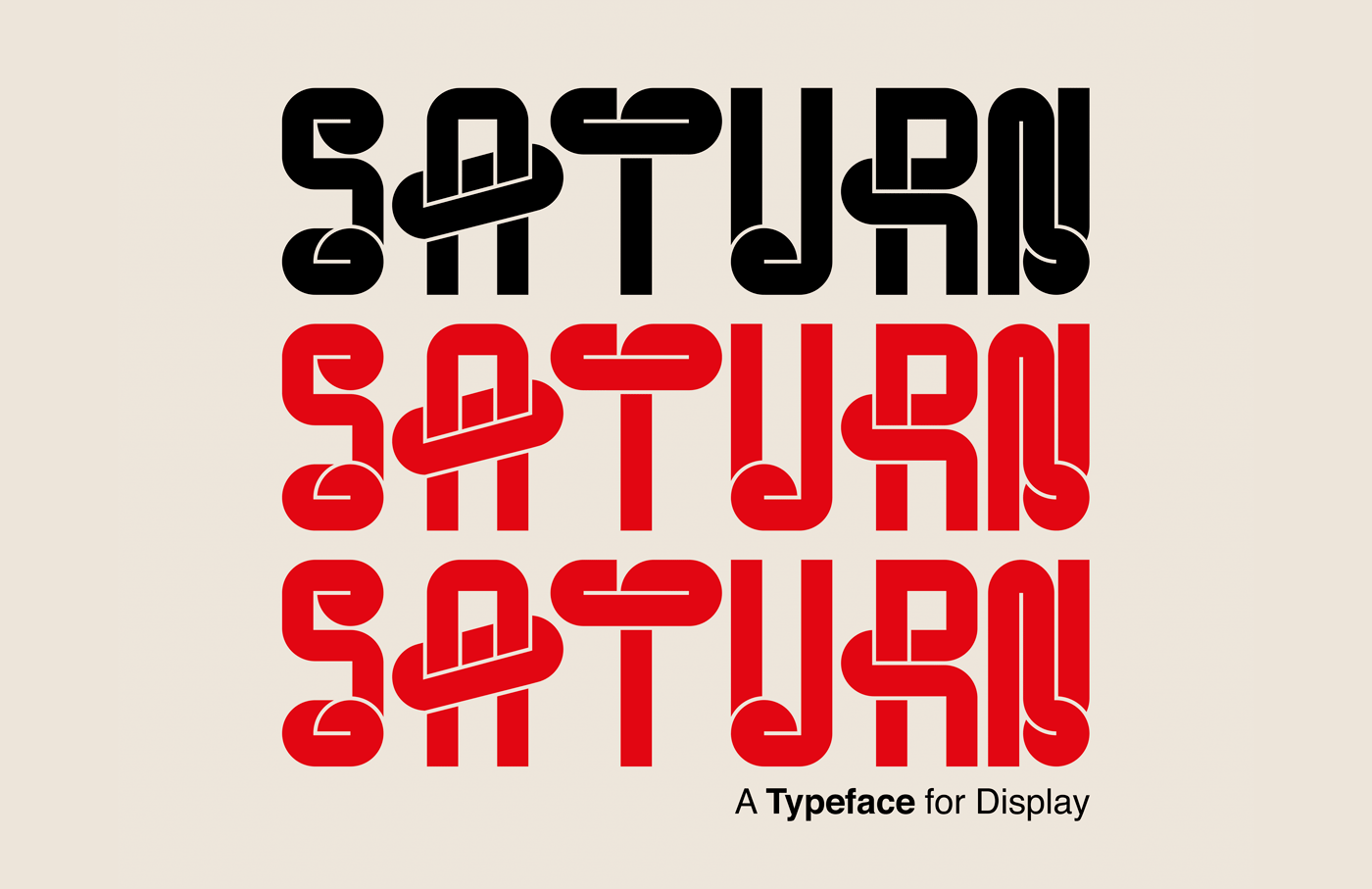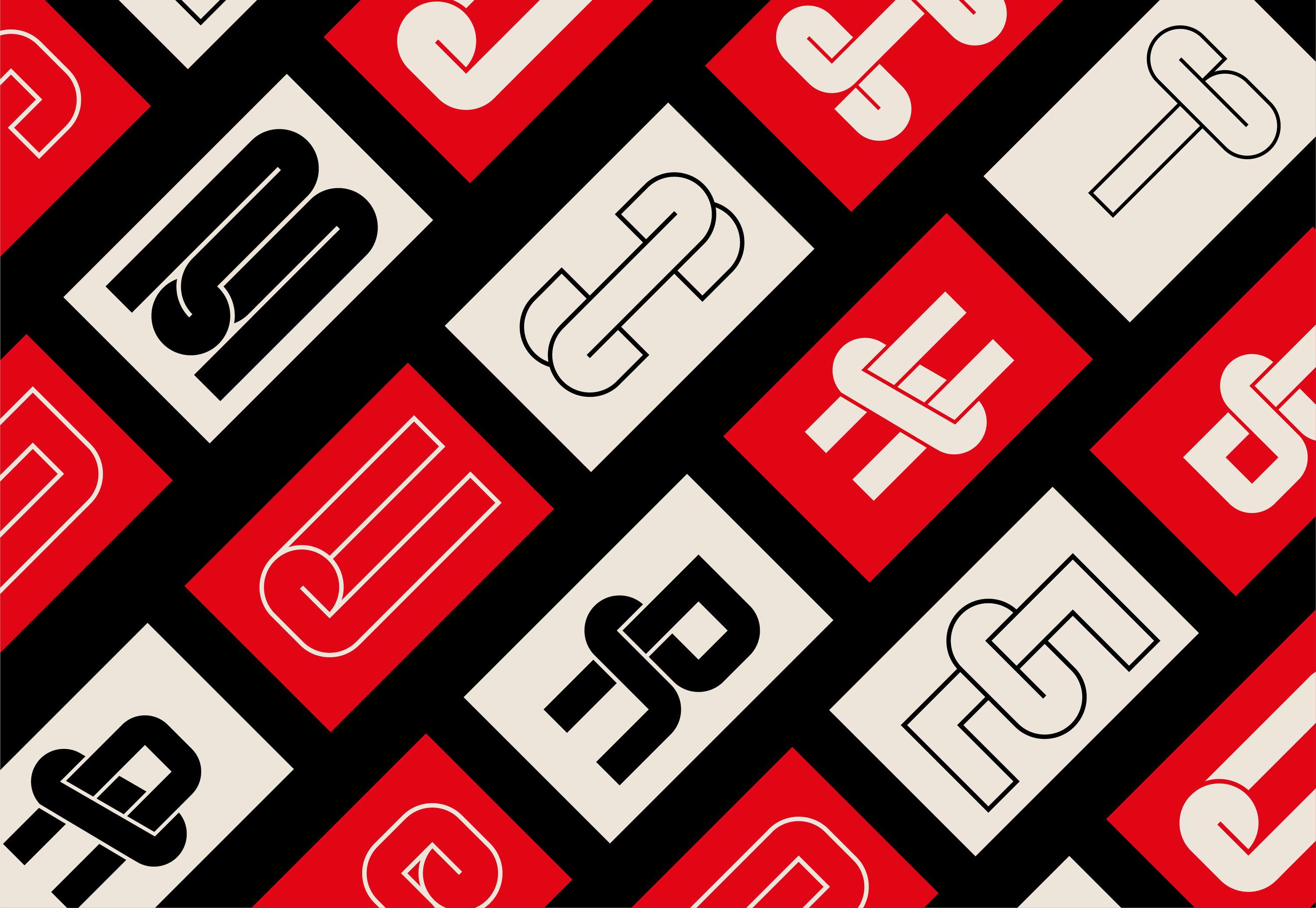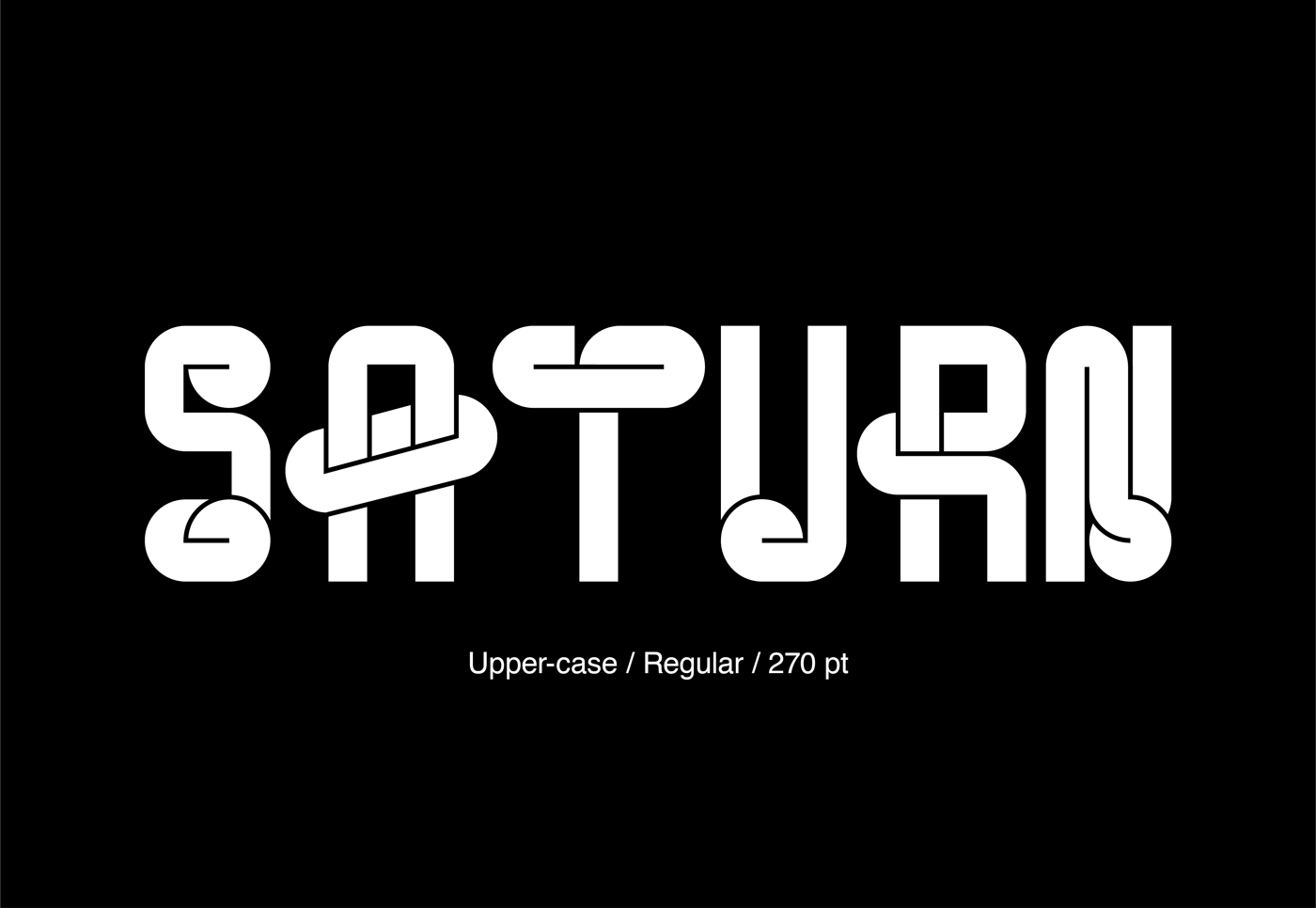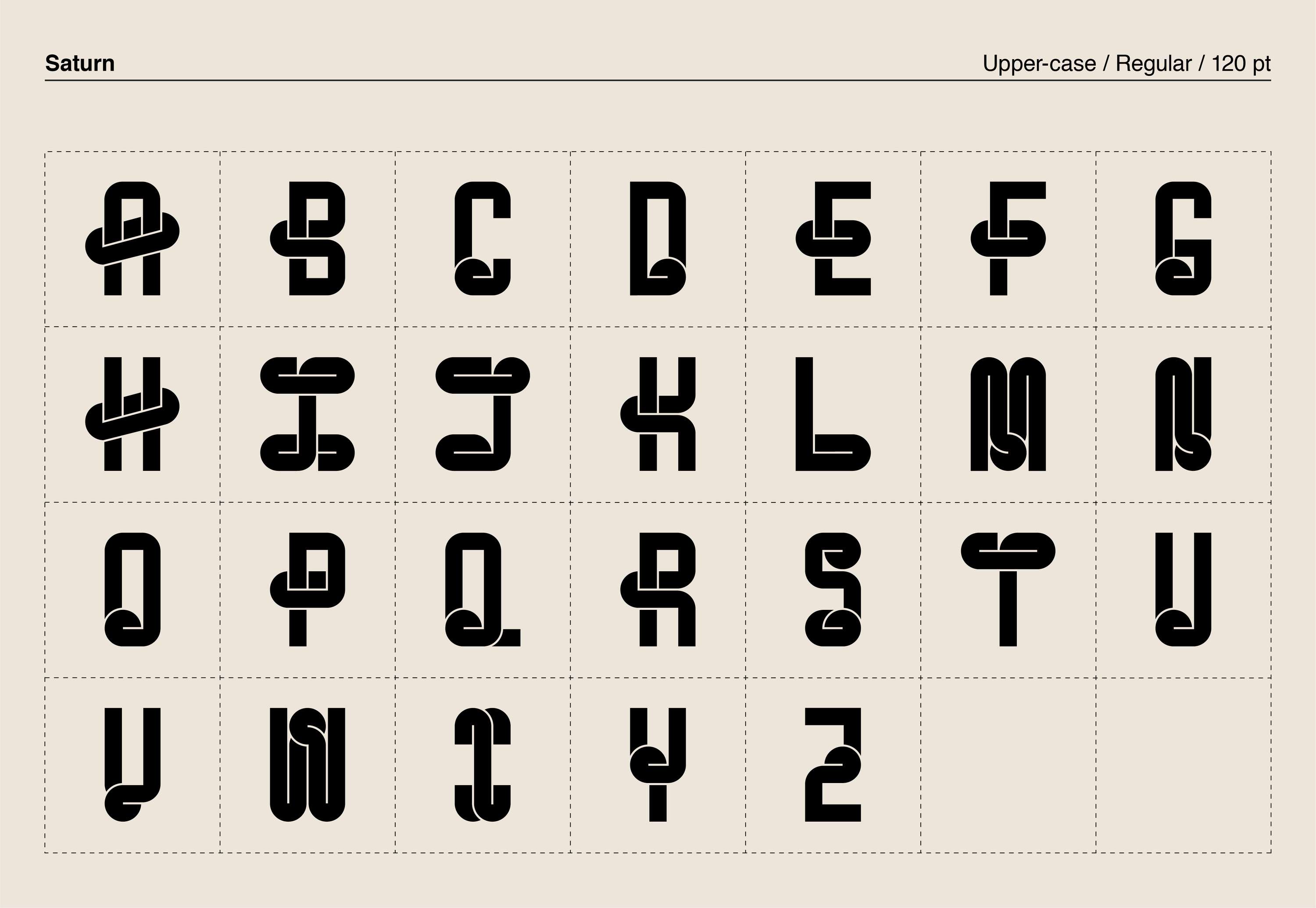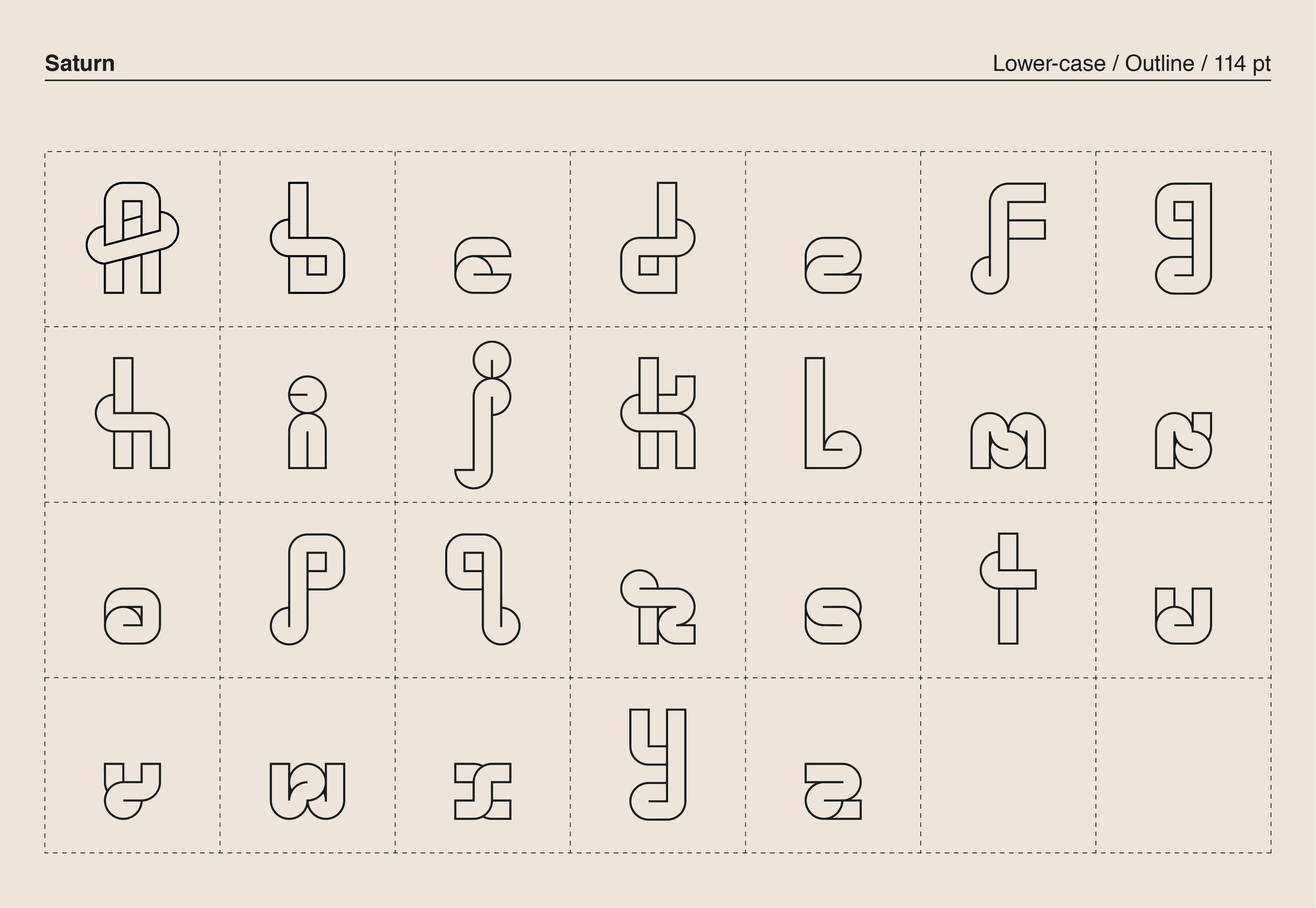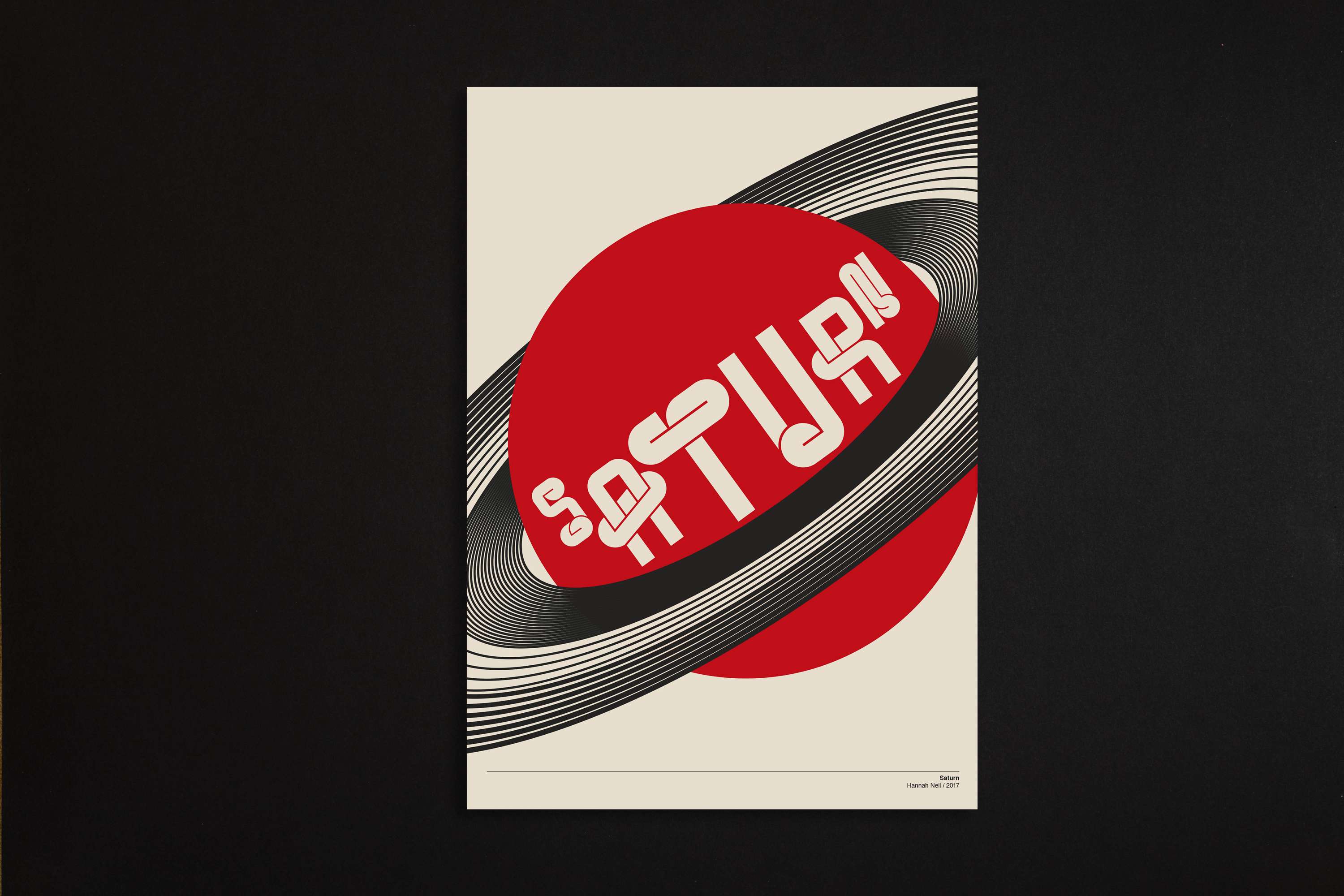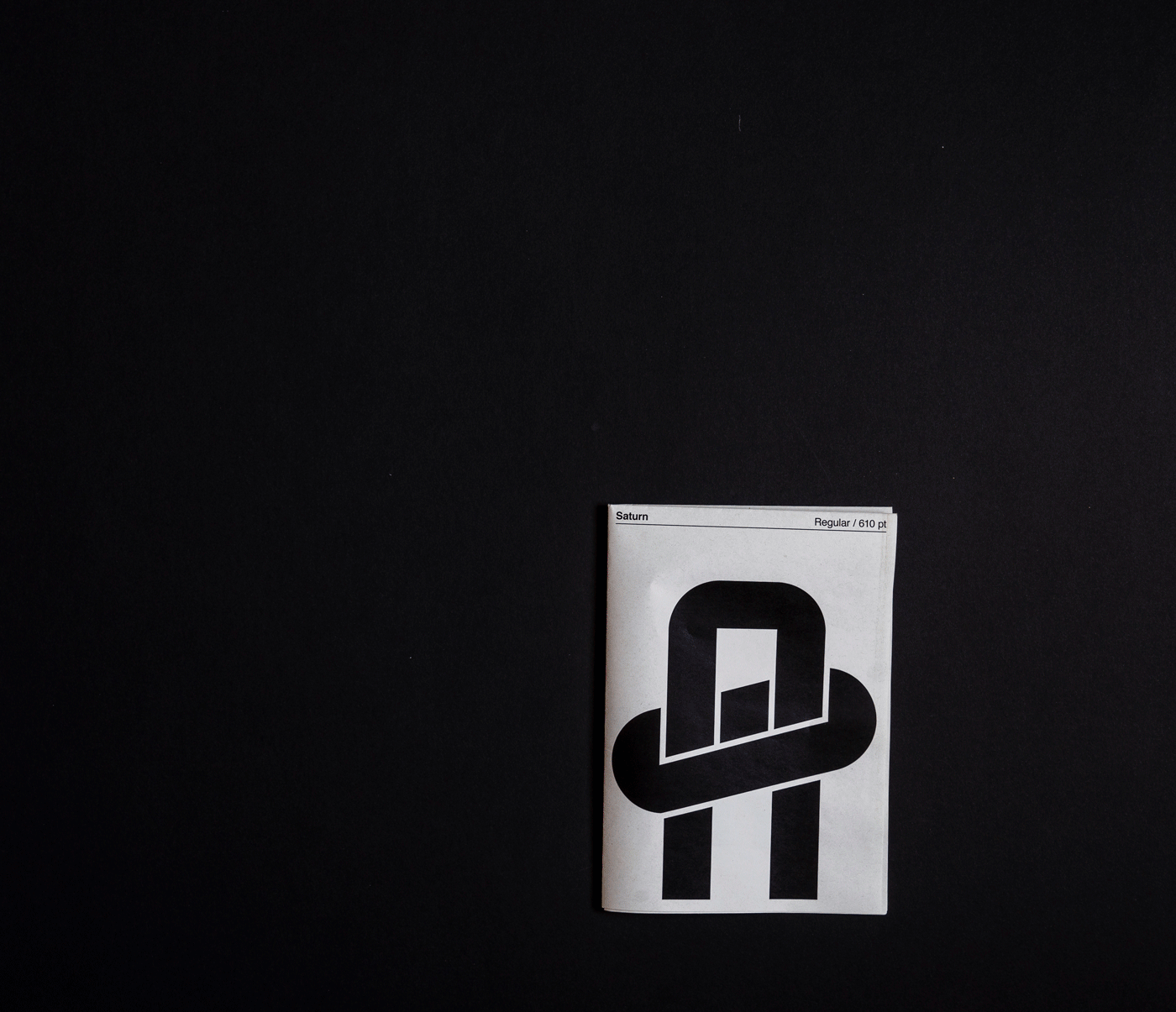
SATURN // Typeface
Saturn is heavy, sans serif typeface intended for display. Saturn was inspired by Saturn’s rings and the graphic illusions of M.C. Escher. The typeface is a modular design made solely of squares and semi circles. Examples of use are headlines and advertisements. The typeface comes in both uppercase and lower case, in regular and outline. The typeface also includes numbers and a selection of special characters. I used the program Fontself to create a font available for use. I created a poster and specimen sheet to promote the typeface.